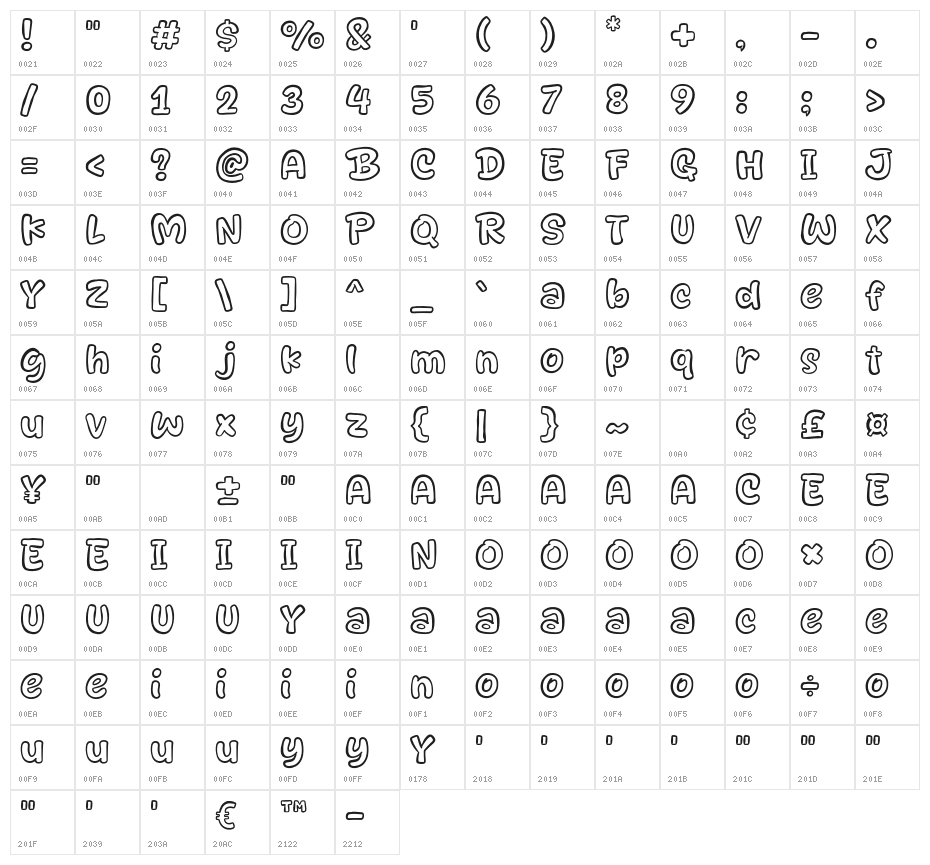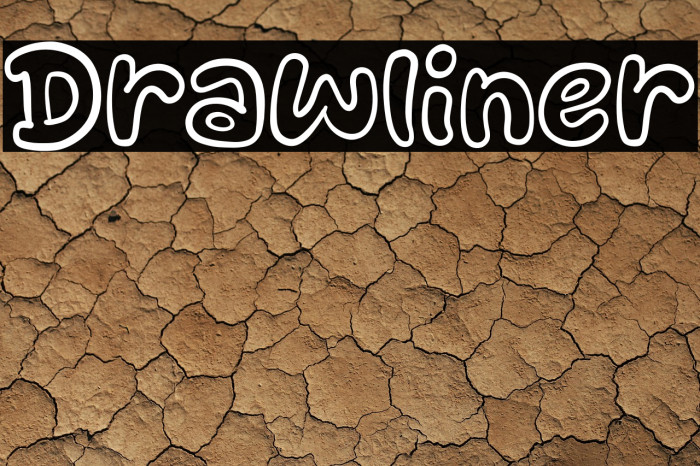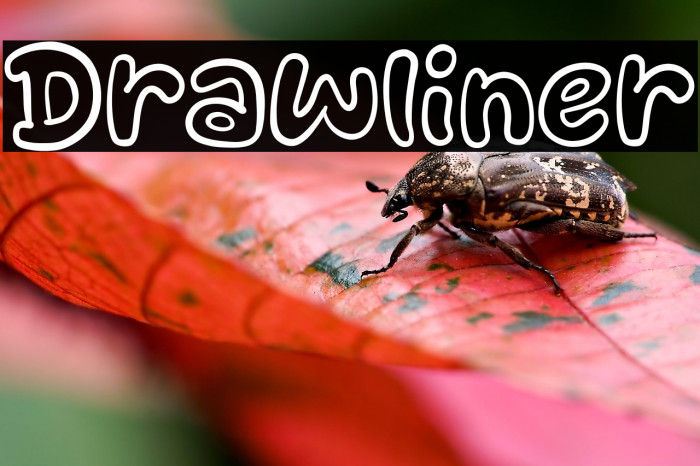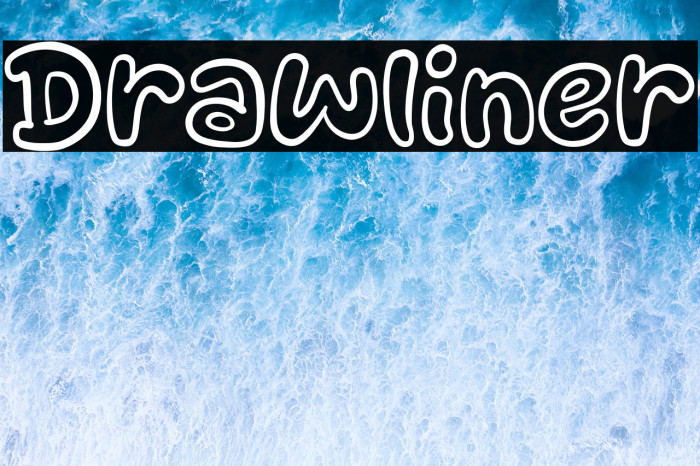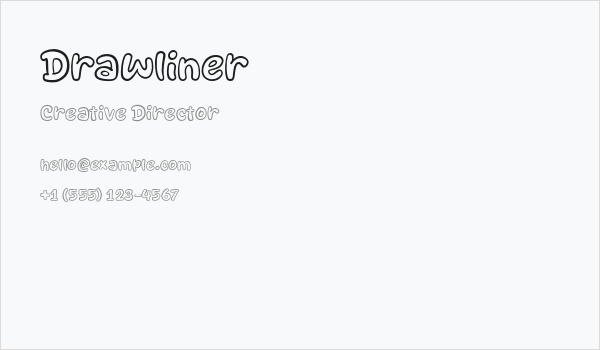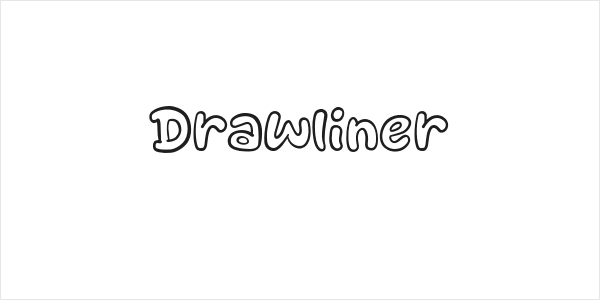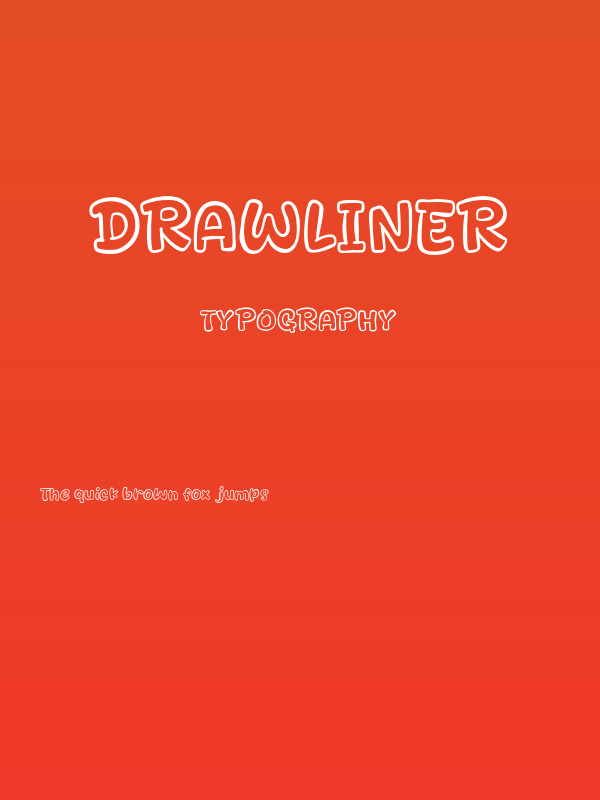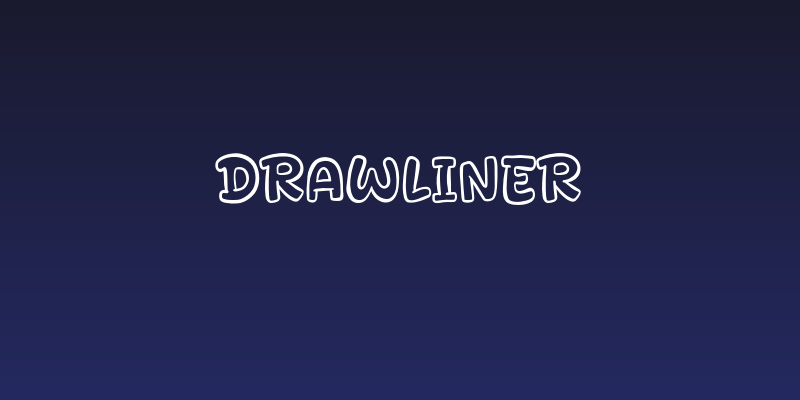
Drawliner Font
Drawliner Description
This playful and bold font features a unique outline style that gives it a cartoonish and fun appearance. Each character is outlined, creating a bubble-like effect that adds a sense of whimsy and creativity. The letters are rounded and slightly irregular, contributing to a casual and approachable feel. The font maintains consistent thickness throughout, ensuring readability while still being visually engaging. Its distinctive style makes it ideal for projects that require a touch of humor and lightheartedness.
| Overall Style | Playful, Cartoonish, Whimsical |
| Use Case | Headlines, Logos, Posters, Invitations |
| Proposed Projects | Ideal for children's books, comic strips, playful branding, party invitations, and any project that benefits from a fun and informal touch. |